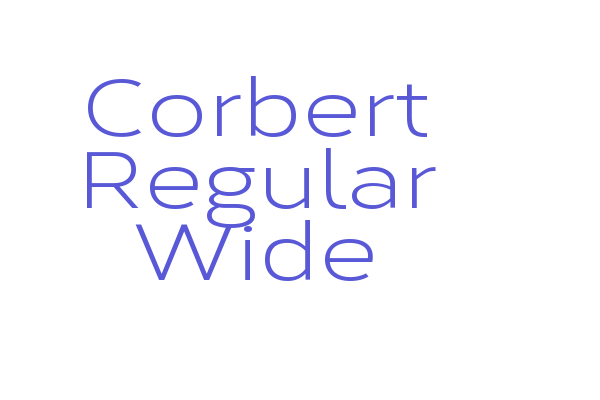
Corbert Regular Wide is a basic sans-serif font designed by Jonathan Hill. With a wide subfamily, this font stands out for its clean and modern aesthetic. Ideal for headlines, logos, and branding projects, Corbert Regular Wide offers a sleek and professional look for a variety of design applications.
Font Name: Corbert Regular Wide
Designer: Jonathan Hill
Font Family: Corbert Wide